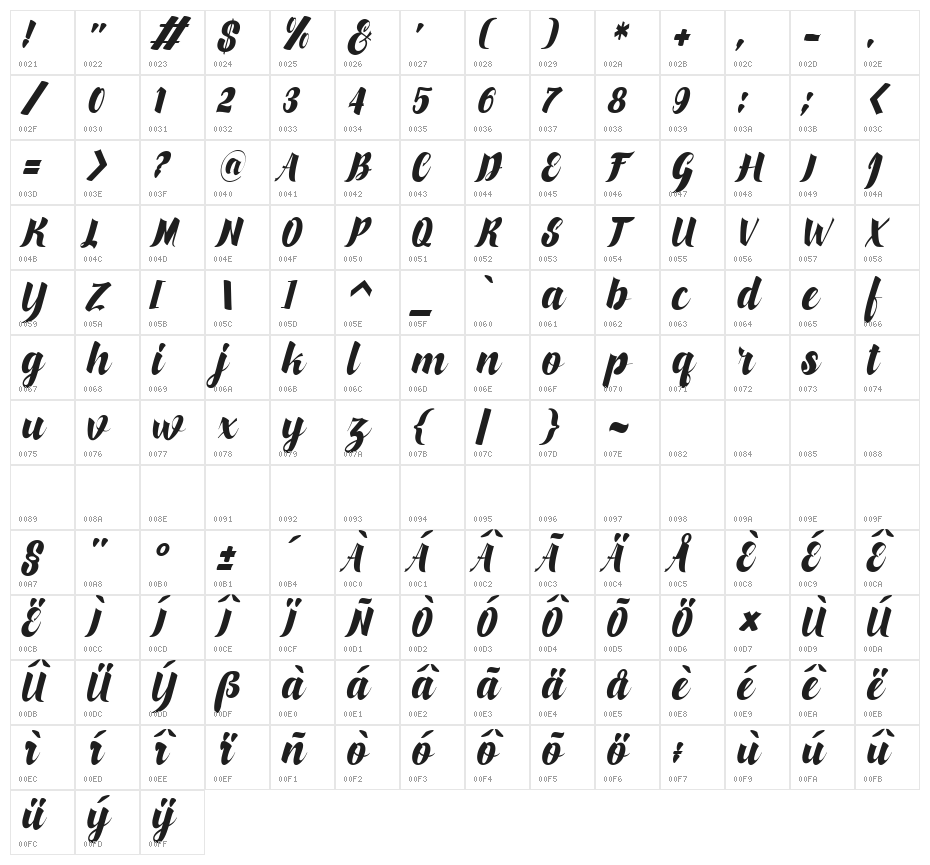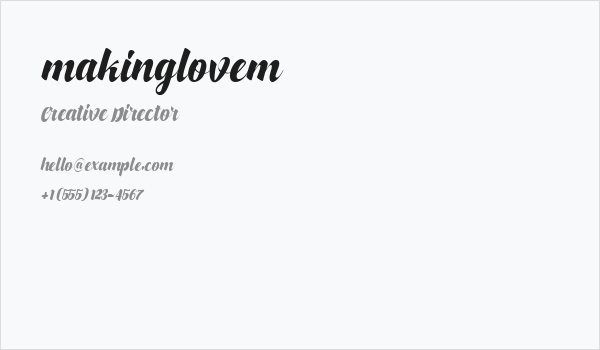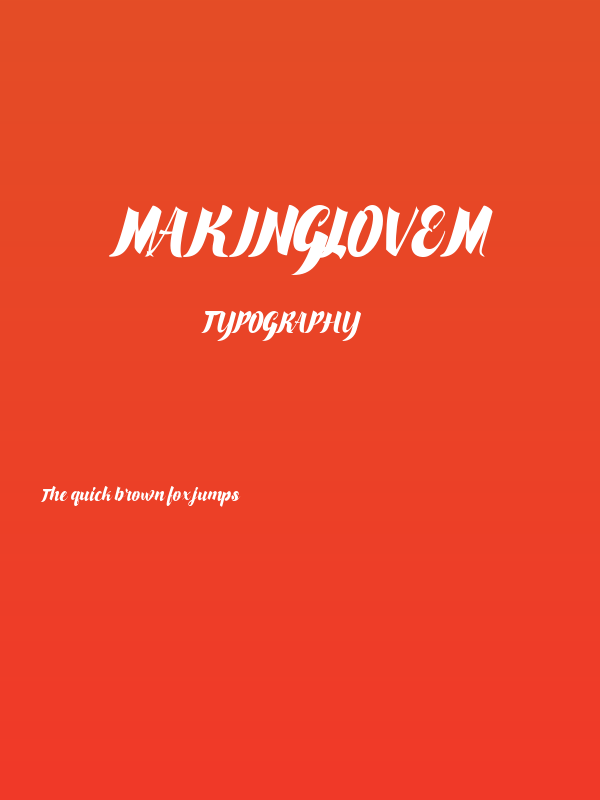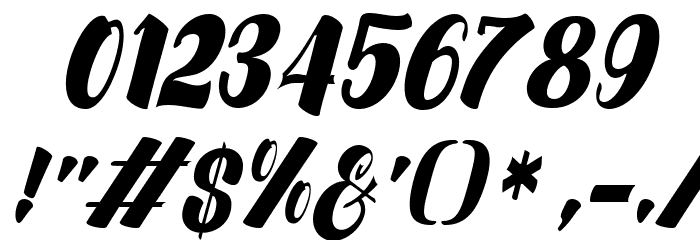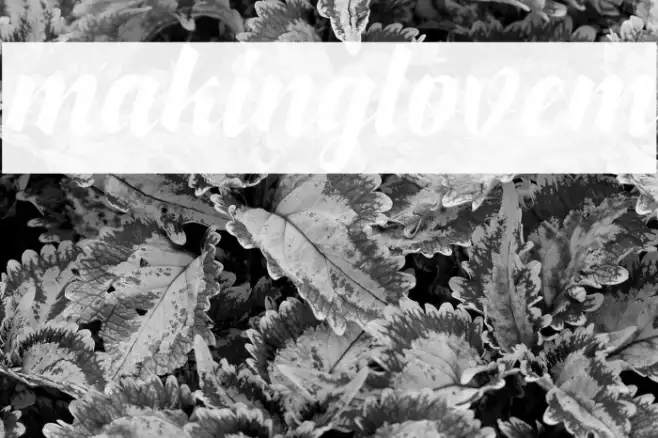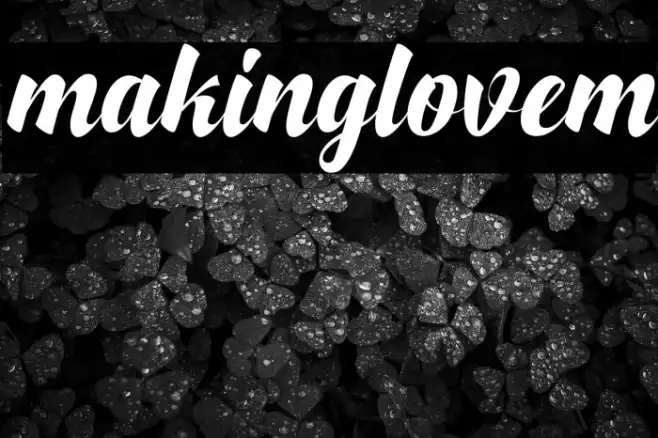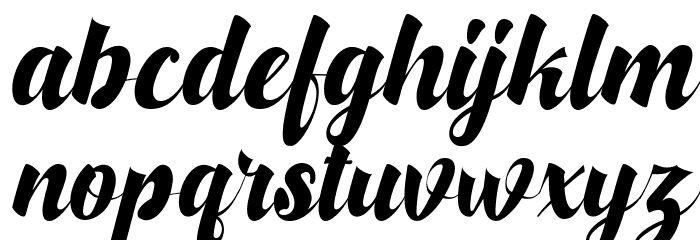
makinglovem Font
makinglovem Description
This font features a bold, flowing script style with a dynamic and energetic appearance. The letters are connected in a cursive manner, giving it a handwritten feel. The strokes are thick and consistent, with a slight slant to the right, adding to its fluidity. The uppercase letters are elaborate and decorative, while the lowercase letters maintain a more uniform and cohesive look. The numbers and special characters follow the same stylistic approach, ensuring a harmonious overall design. This font is ideal for creating impactful and stylish designs that require a touch of elegance and flair.